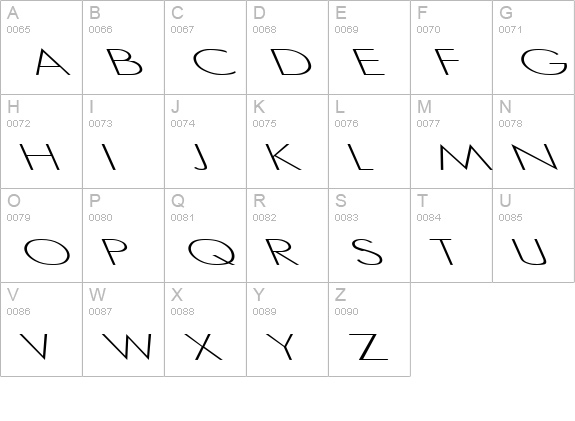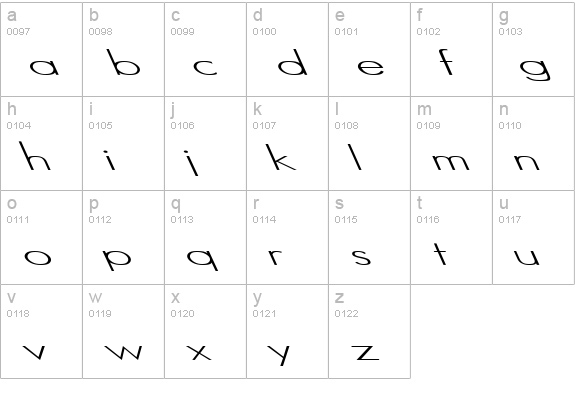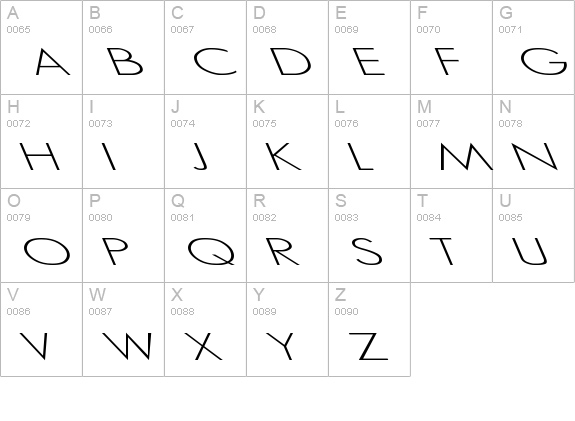
Micro Serif Light Lefty is a refined, elegant variant in the Micro typeface family \xE2\x80\x94 well suited to elegant body text, refined sub-headings, and luxury branding.
Introducing Micro Serif Light Lefty font, a sleek and stylish typeface designed for left-handed writers. This elegant font features delicate serifs and a light weight, making it perfect for adding a touch of sophistication to your projects. The Micro Serif Light Lefty font is not only visually appealing but also highly functional for those who write from left to right. The best part? This exquisite font is available for free download at FontsMarket.com, allowing you to easily access and utilize it for all your creative endeavors. Whether you're designing invitations, creating logos, or crafting elegant typography pieces, the Micro Serif Light Lefty font is sure to elevate your work with its unique charm and versatility. Don't miss out on this opportunity to enhance your designs with the Micro Serif Light Lefty font. Download it for free today and add a touch of sophistication to your projects!